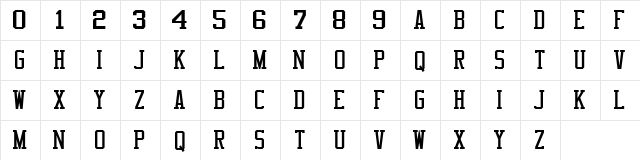
NBA Nets Regular Font Preview
NBA Nets Regular
NBA Nets Regular Font Details
Design Context for NBA Nets Typeface
NBA Nets offers clean, dependable letterforms without strong stylistic allegiance, making it a practical choice for designers who need flexibility.